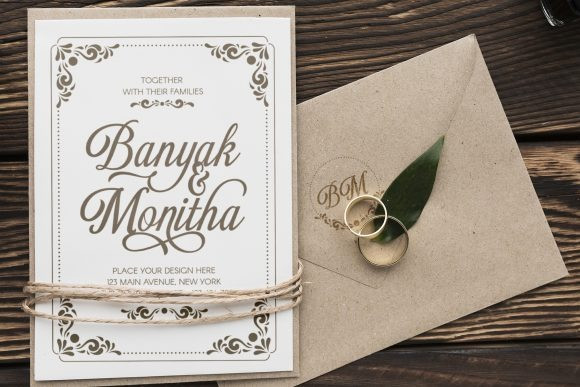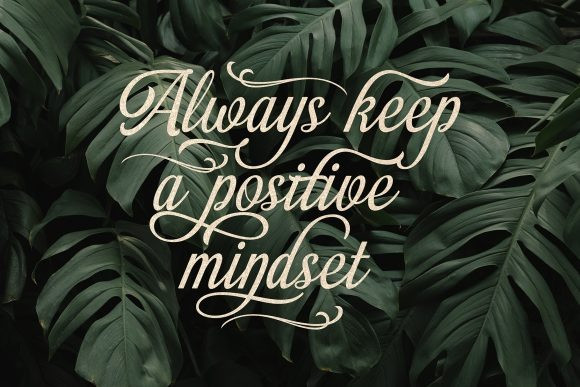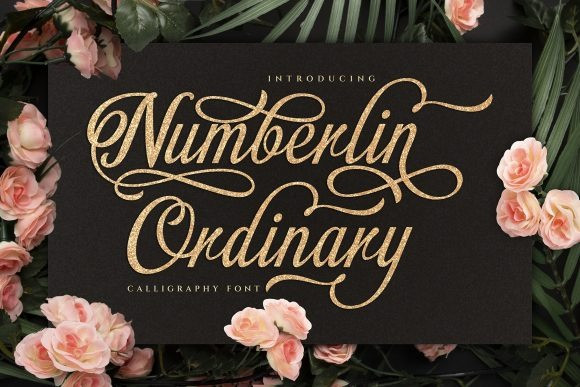
Numberlin Ordinary Font
Numberlin Ordinary Script Font is a delicate, elegant and flowing handwritten font. It has beautiful and well balanced characters and as a result, it matches a wide pool of designs. Add it to your most creative ideas and notice how it makes them come alive!